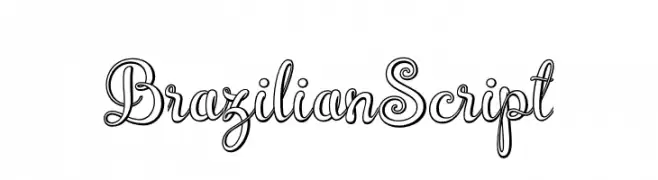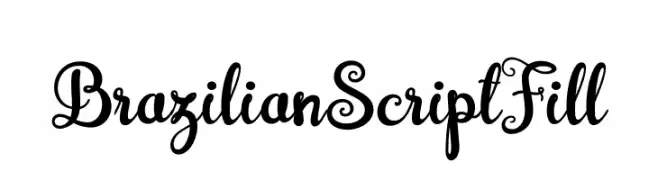
A bold, elegant script font with fluid, cursive strokes.
A dynamic and flowing script font with elegant, cursive strokes.
A slanted, elegant script font with smooth, flowing strokes.
A charming and elegant script font with flowing, cursive letterforms.
A dynamic, cursive script font with elegant loops and swirls.
An elegant, flowing script font with a sophisticated, handwritten style.
A graceful and elegant script font with flowing, interconnected letters and artistic swashes.
A flowing, cursive script font with bold strokes and medium contrast.
A graceful script font with flowing, interconnected letters and elegant swashes.
A graceful script font with fluid, connected strokes and a handwritten style.
A lively, handwritten-style font with bold, expressive strokes.
An elegant, cursive script font with ornate uppercase and smooth lowercase letters.
An elegant and flowing script font with classic cursive style.
A dynamic and elegant script font with flowing, cursive letterforms.
A fluid, cursive font with an elegant, handwritten style.